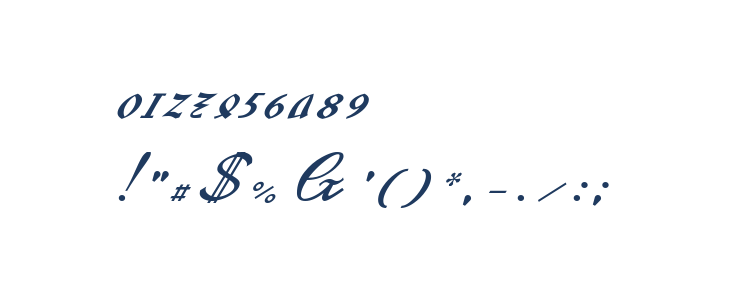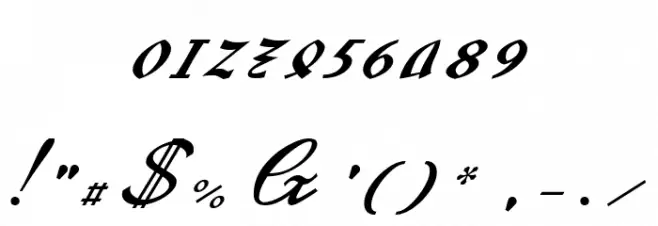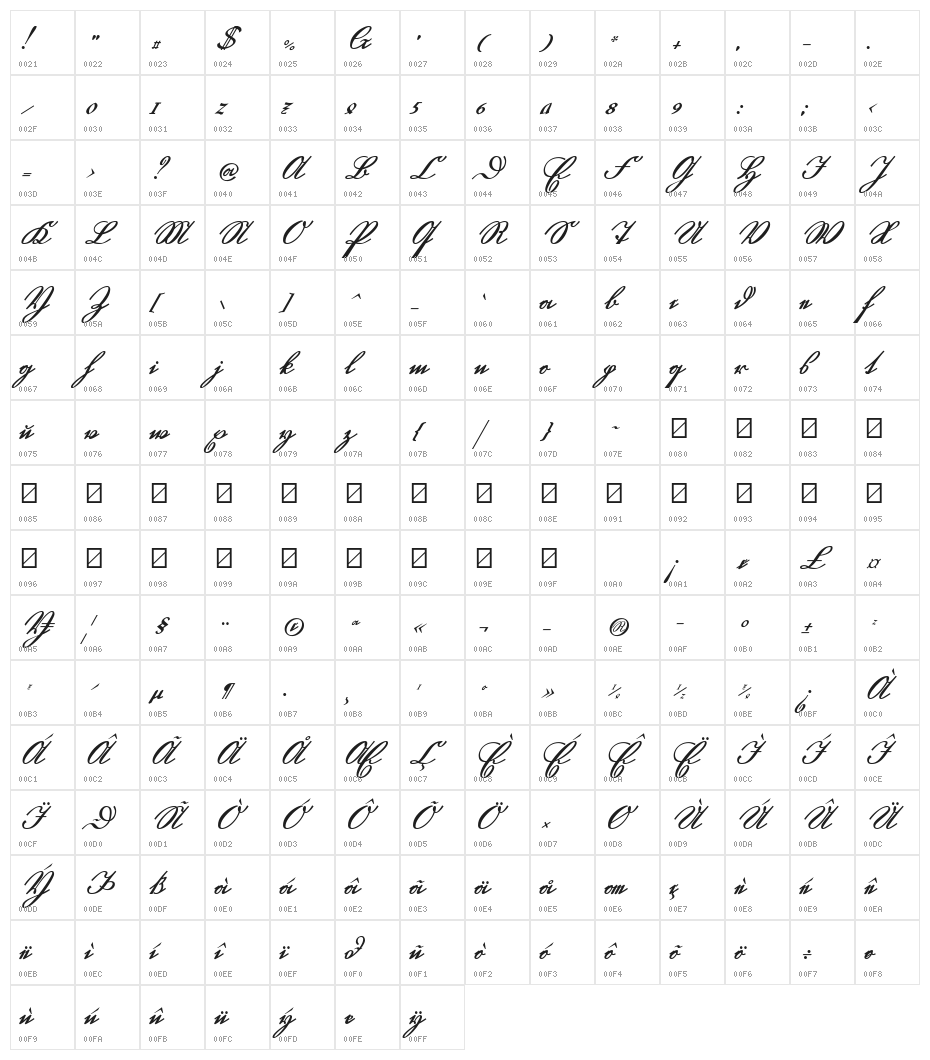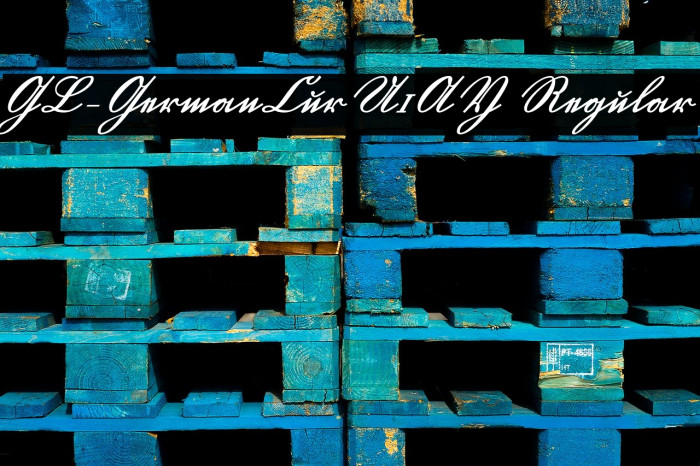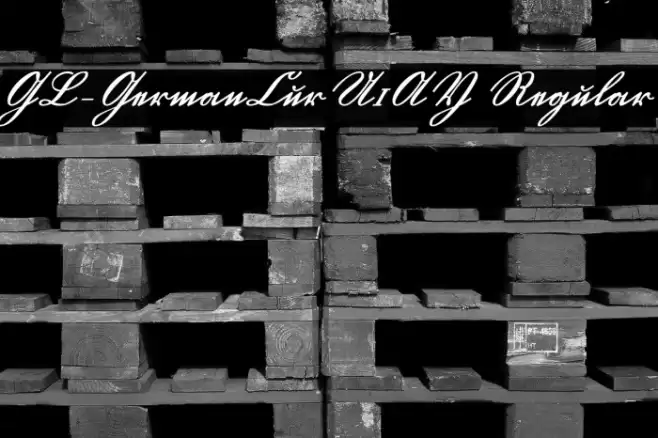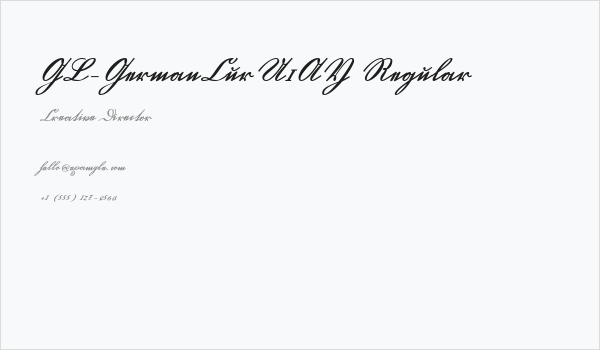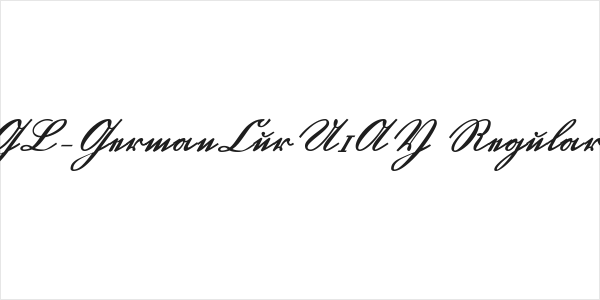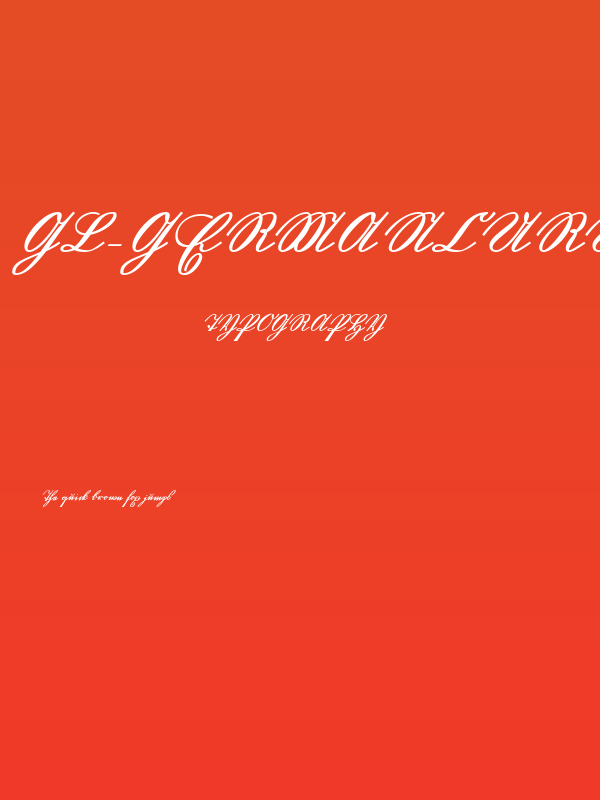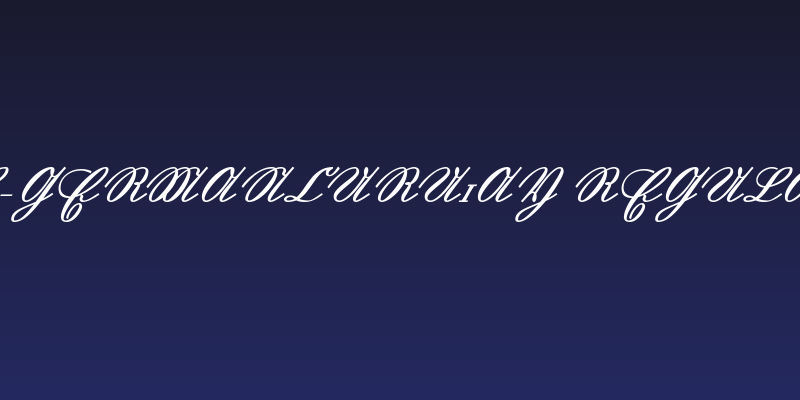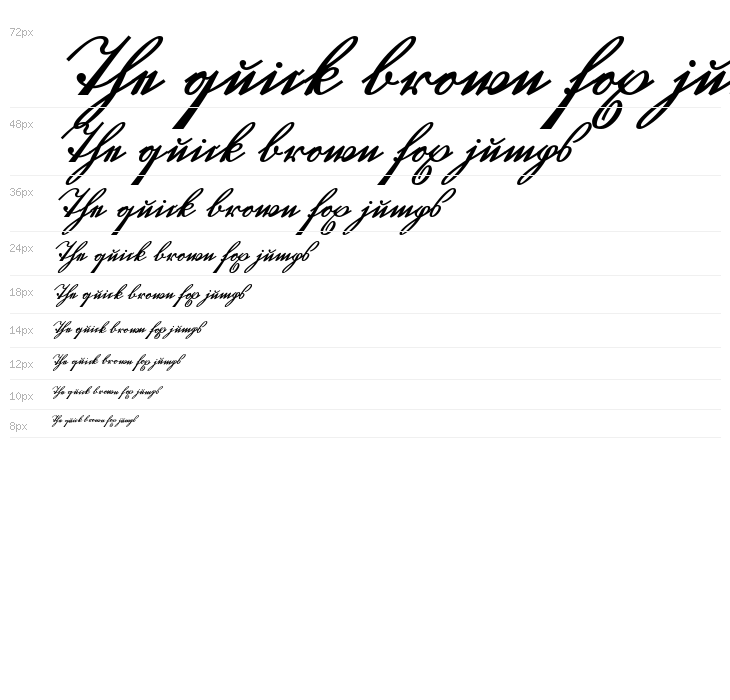
GL-GermanCurU1AY Regular Font
GL-GermanCurU1AY Regular Description
This elegant script font features a flowing, cursive style with intricate loops and swashes, reminiscent of traditional calligraphy. The uppercase letters are ornate and decorative, while the lowercase letters maintain a consistent, fluid motion. The numerals and special characters are designed to complement the overall aesthetic, with a harmonious balance between form and function. The font's strokes vary in thickness, adding a dynamic contrast that enhances readability while maintaining its artistic flair. Ideal for projects that require a touch of sophistication and elegance.